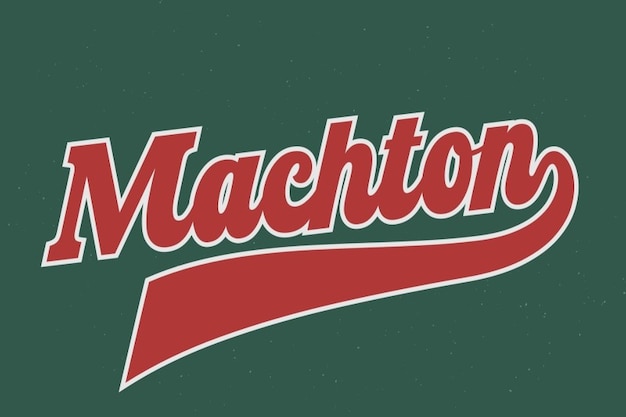
Machton Font
Machton is a sleek, vintage-inspired font perfect for baseball and sports themes. Its bold lettering features stylish swashes that evoke classic jersey designs, capturing the spirit of the game. With a nostalgic yet modern flair, Machton brings energy and tradition to team uniforms, sports logos, and apparel, ideal for adding a timeless edge to any athletic branding.